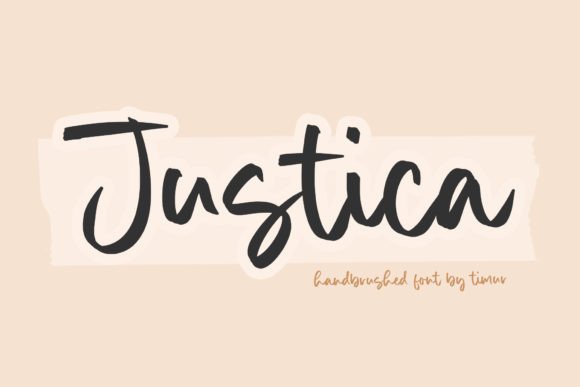
Embark on a journey into the realm of captivating typography with Justica Font, a mesmerizing handwritten script that will transform your digital creations into masterpieces. Crafted with meticulous attention to detail by Timur Type, Justica Font is not just a collection of letters; it's an expression of art, a symphony of strokes that dances across your screen. With its wide array of applications, from the warmth of greeting cards to the bold presence of headlines, Justica Font is the perfect partner for designers seeking to add a touch of romance and elegance to their projects.
Indulge in the allure of Justica Font's delicate curves and graceful lines, reminiscent of a gentle breeze caressing a field of flowers. Its elegant swashes and stylish ligatures add a touch of playful sophistication, enhancing the visual appeal of your designs. Whether you're a seasoned designer or just starting your creative journey, Justica Font will elevate your work to new heights, leaving a lasting impression on your audience.
With Justica Font, you'll unlock a world of possibilities, transforming ordinary words into works of art. Its versatility knows no bounds, making it an ideal choice for a diverse range of projects. From branding and logos to invitations and social media posts, Justica Font seamlessly adapts to your creative vision, adding a touch of charm and personality to every endeavor.
Unleash your creativity and let Justica Font guide you through a world of boundless imagination. Experience the joy of crafting designs that resonate with your audience, leaving them spellbound by the beauty of your creations. Justica Font is more than just a font; it's an invitation to embark on a journey of artistic expression, where every project is an opportunity to leave a lasting impression.